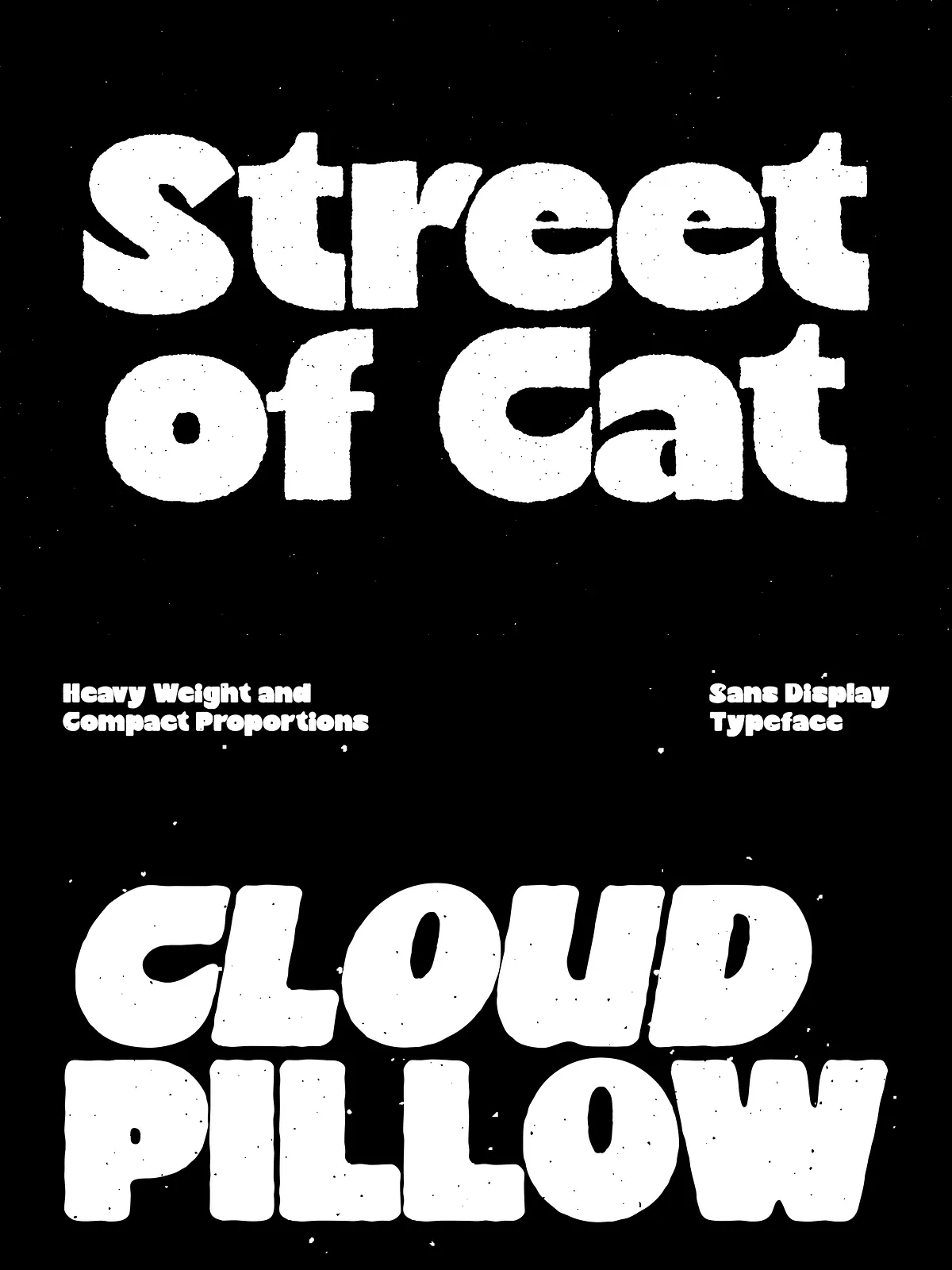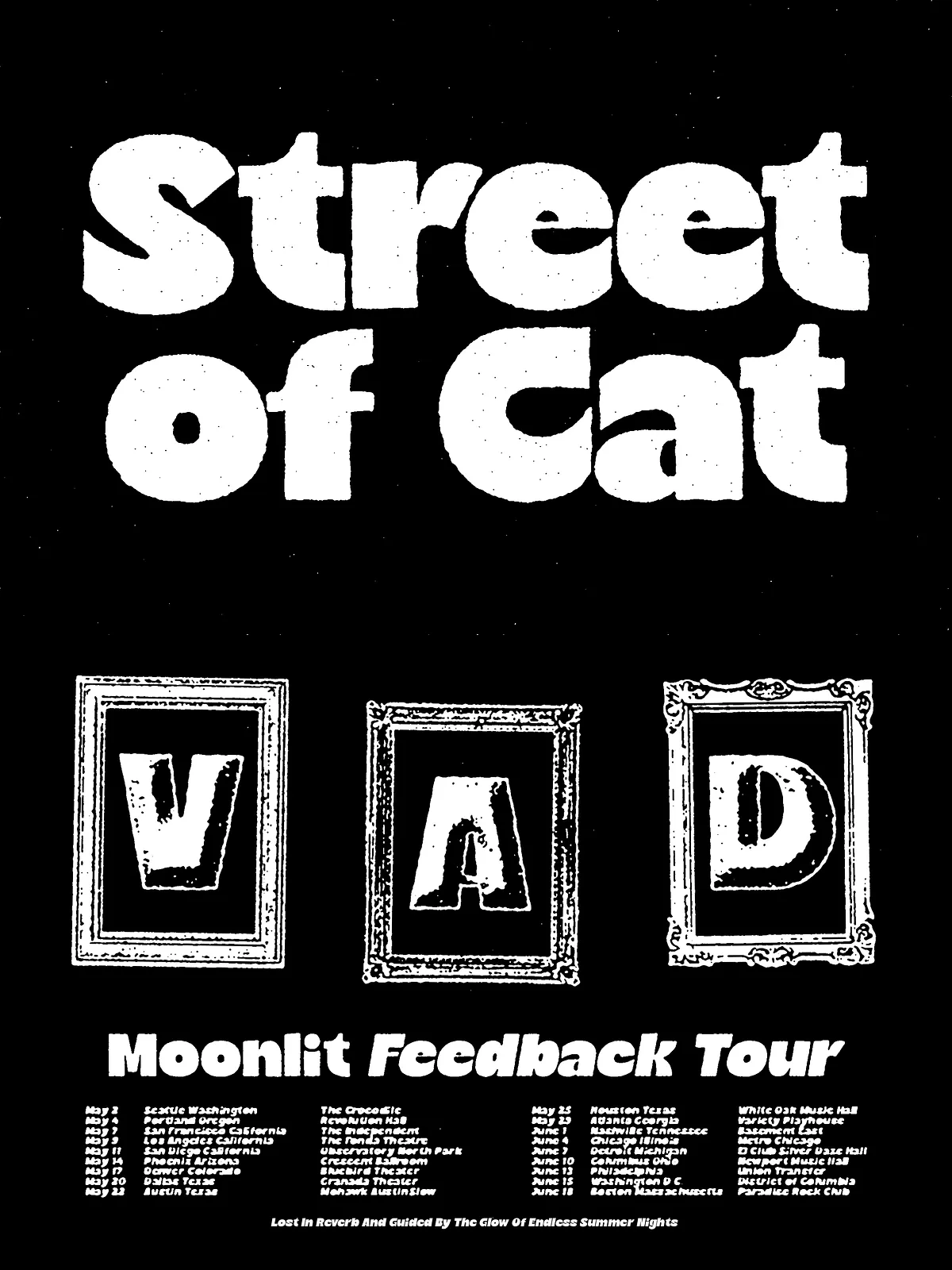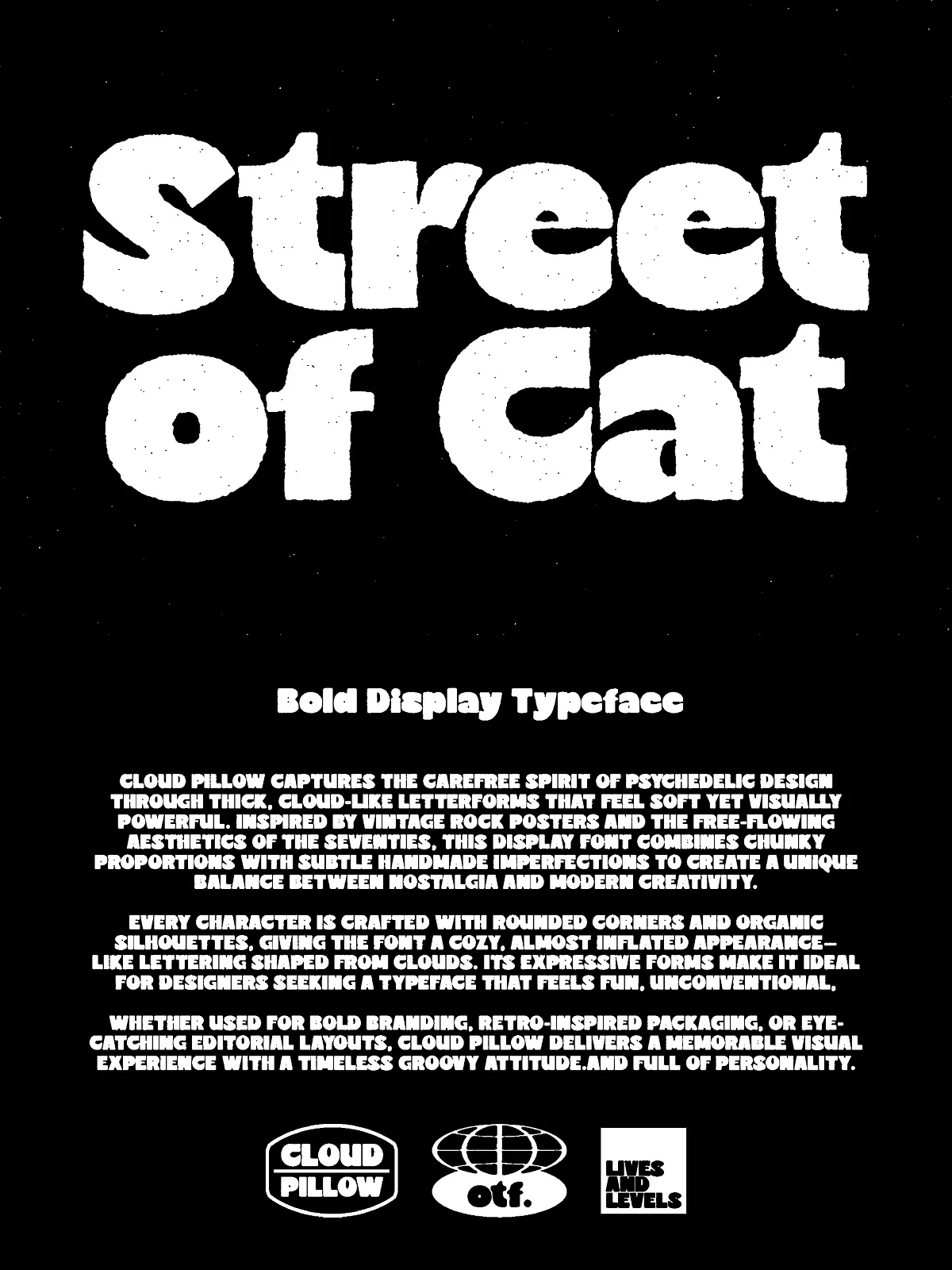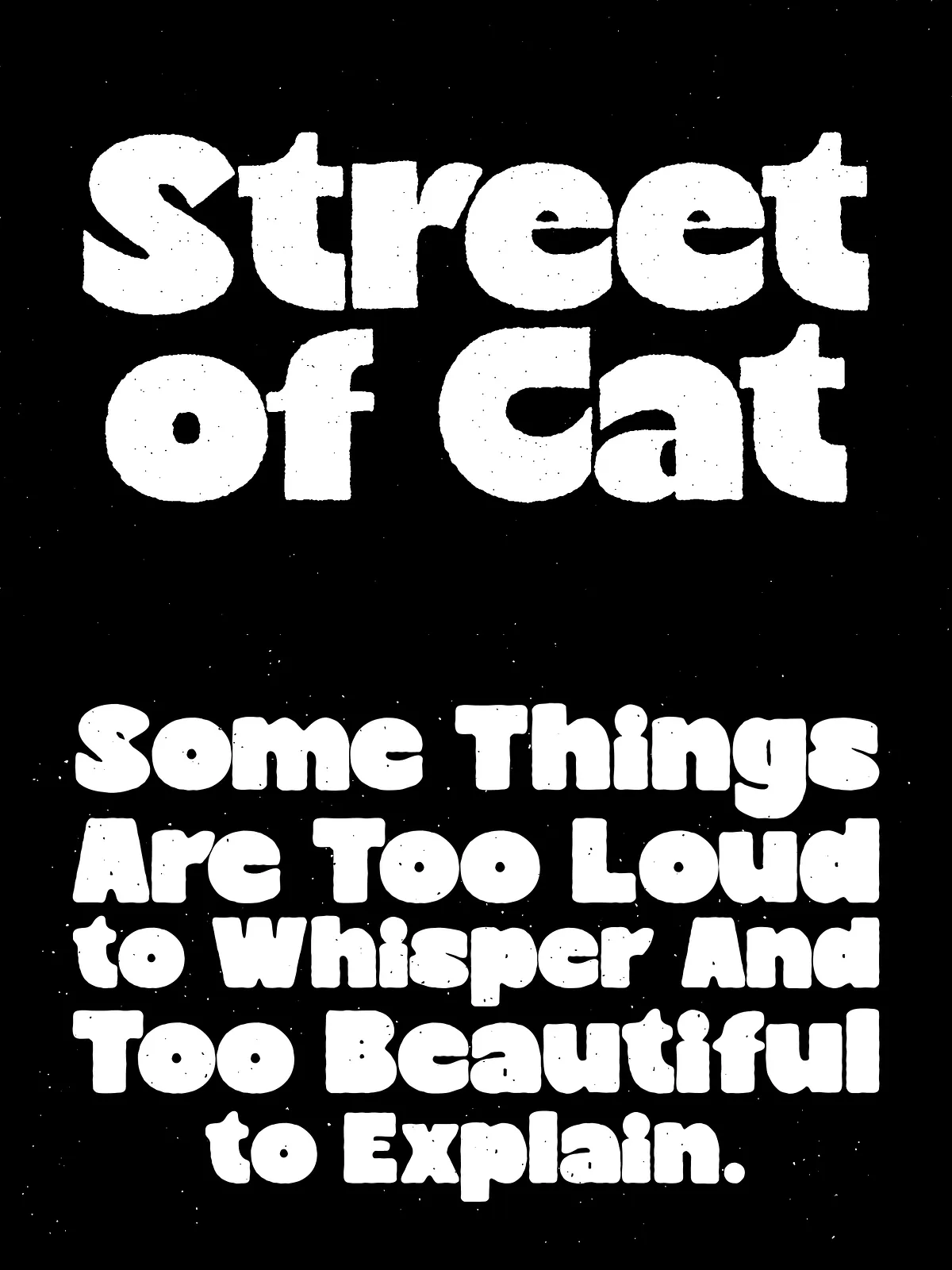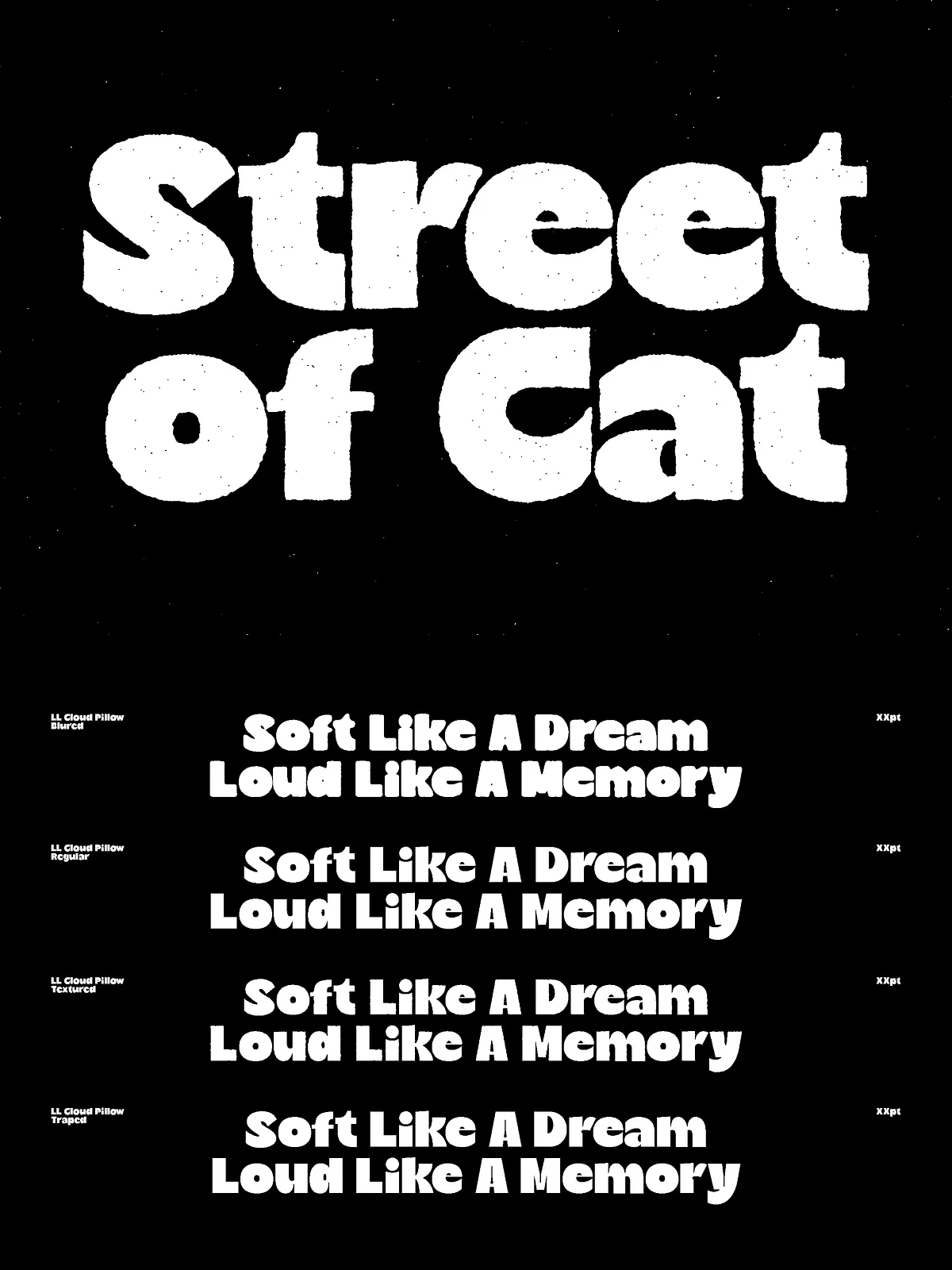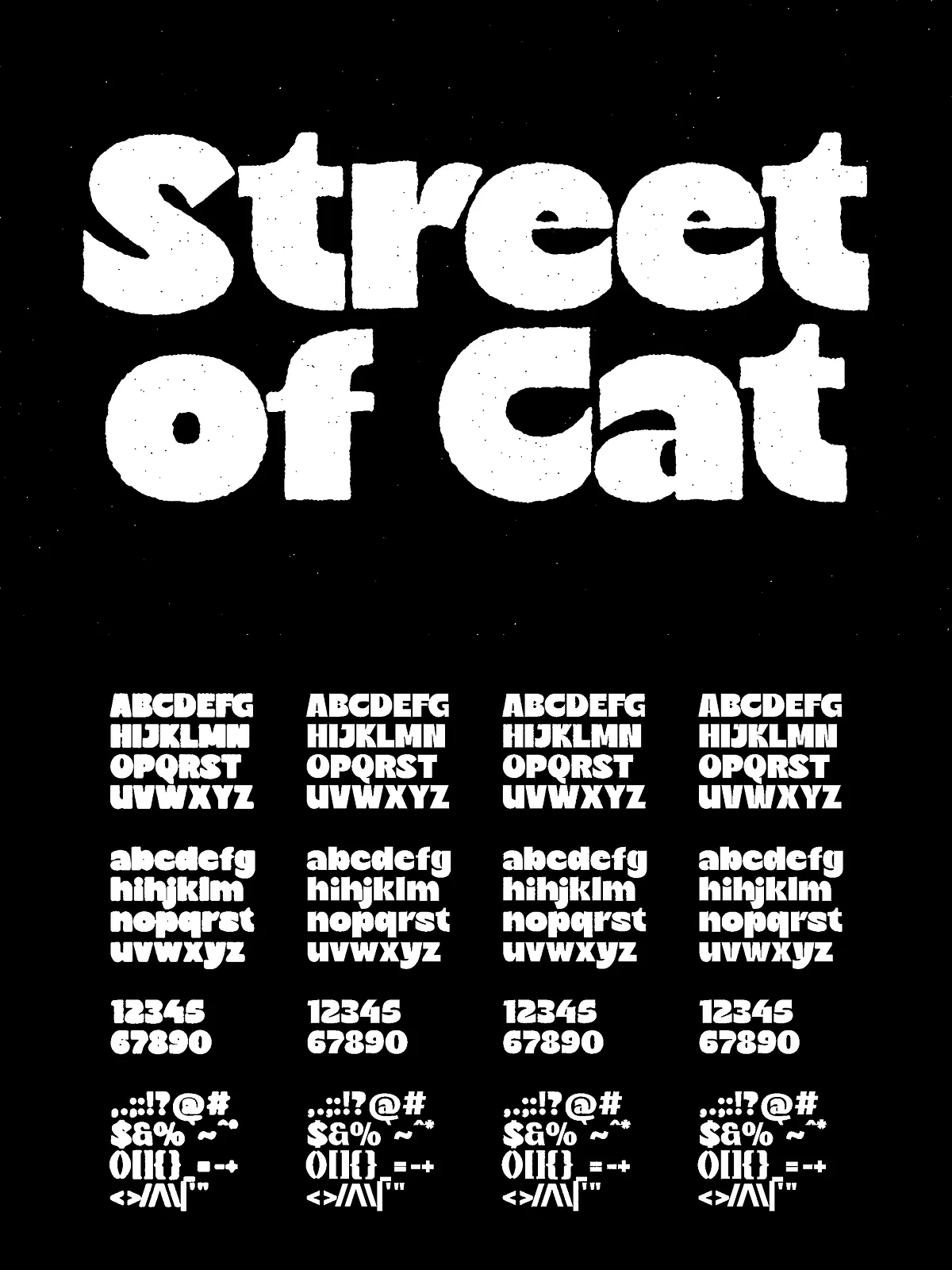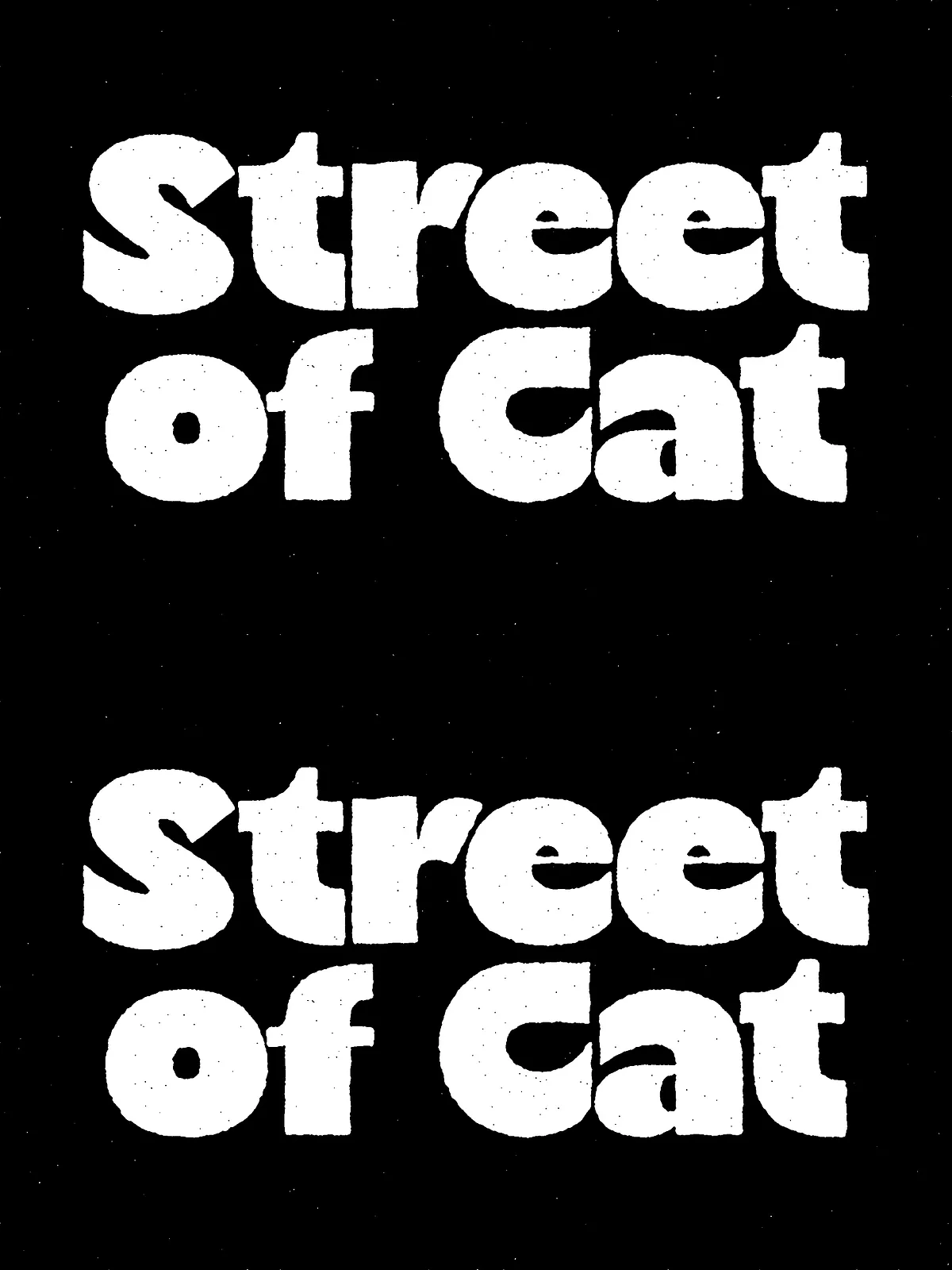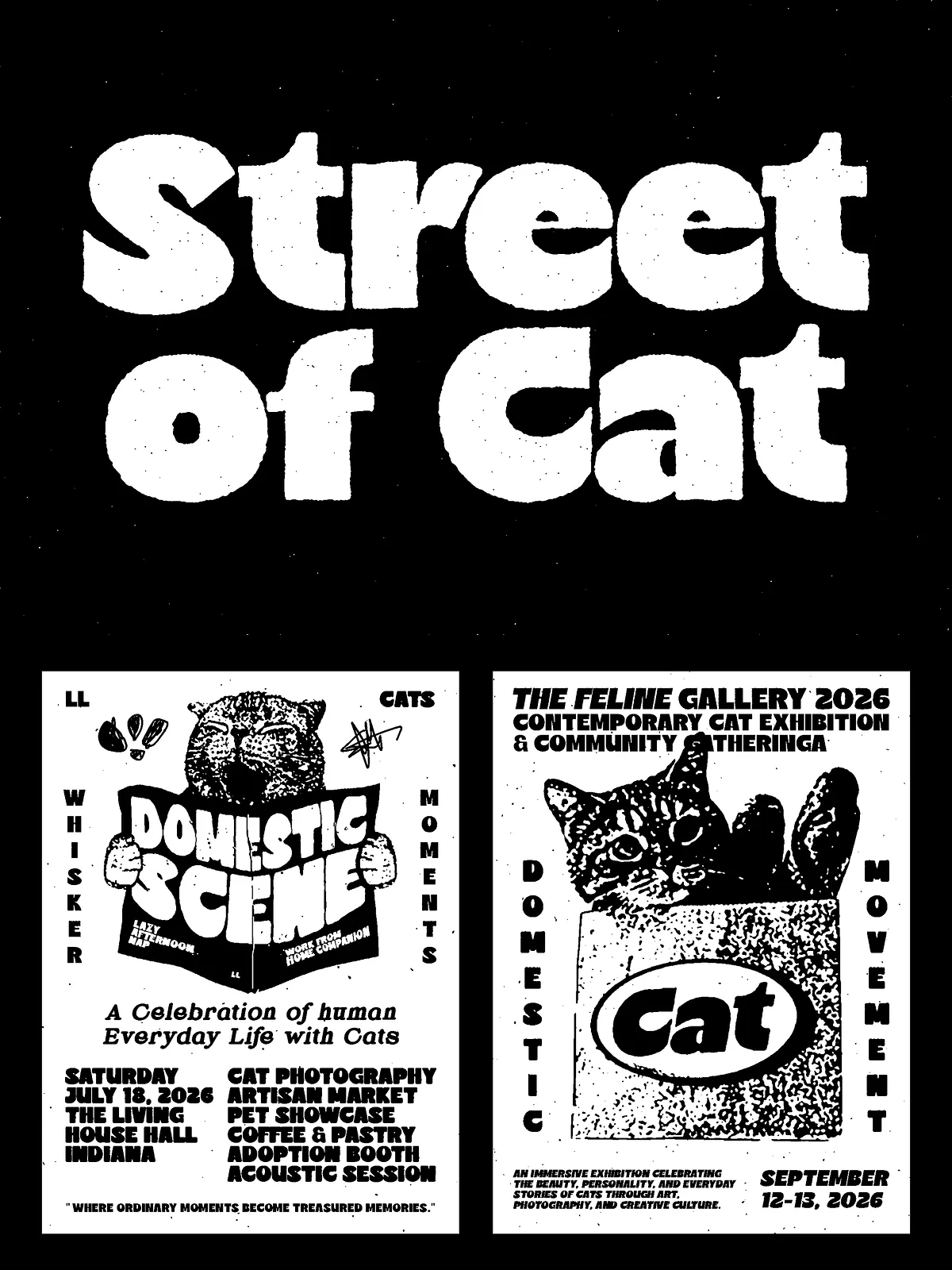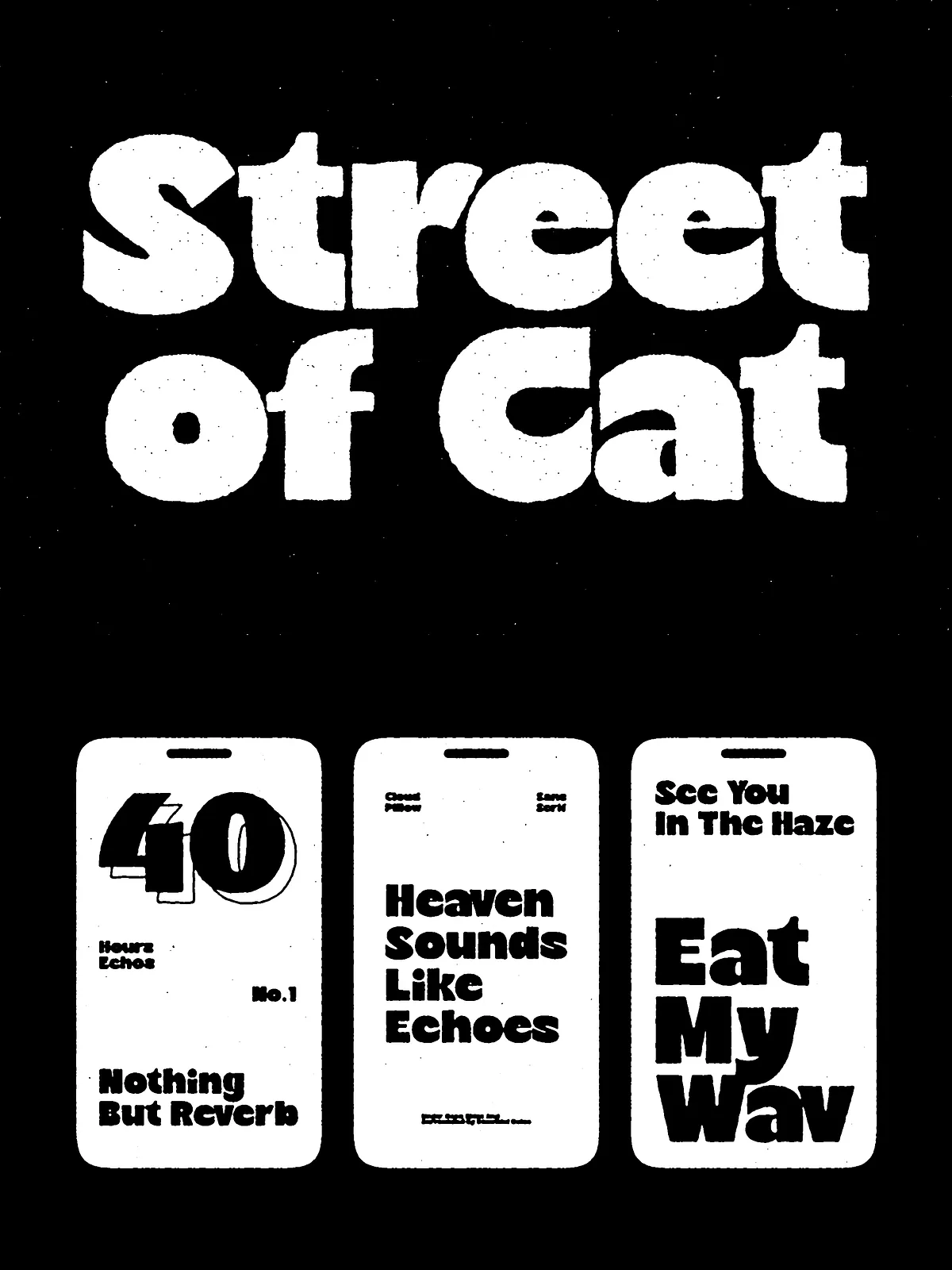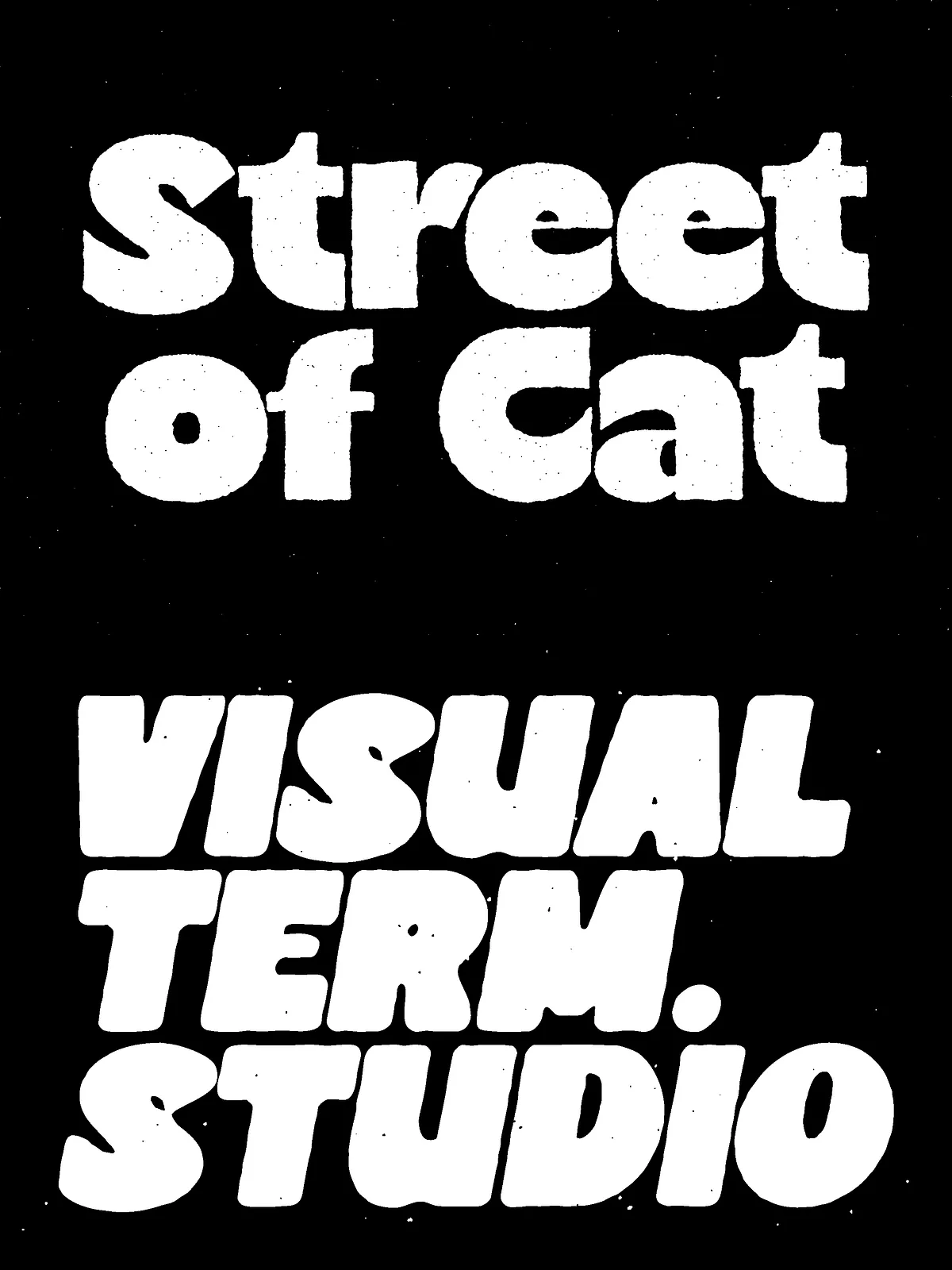
Cloud Pillow stands as a vibrant testament to the power of playful typography. This chunky, feel-good display typeface brings oversized curves and a soft, hand-shaped attitude to every design it touches. Inspired by the vibrant aesthetics of vintage psychedelia and the distinctive charm of playful retro signage, Cloud Pillow delivers a font family that refuses to blend into the background. Every letter carries a slightly imperfect silhouette, creating a warm and rebellious personality that instantly captures attention and holds the viewer’s gaze.
Designed for creators who seek to make a strong visual impact, Cloud Pillow bridges the gap between nostalgic warmth and modern boldness. Its fluffy, impossible-to-ignore presence makes it an ideal choice for projects that demand energy, personality, and a touch of rebellious spirit. Whether you are designing eye-catching posters, iconic album covers, distinctive packaging, or expressive brand identities, Cloud Pillow injects a sense of fun and nostalgia that resonates with audiences.
Distinctive Visual Character
Cloud Pillow distinguishes itself through its unique, hand-shaped forms that reject rigid geometric precision in favor of organic, flowing curves. This intentional imperfection gives the font its signature warmth and charm, making it feel approachable yet strikingly bold. The oversized nature of the letters ensures that your message is never missed, while the subtle variations in the letterforms add depth and interest that generic sans-serifs often lack.
The font’s ability to evoke nostalgia while maintaining a contemporary edge makes it incredibly versatile. It captures the spirit of past eras without feeling dated, allowing designers to create work that feels both timeless and current. This balance of old-world charm and modern appeal ensures that Cloud Pillow remains relevant across a wide range of creative applications.
Comprehensive Style Options
Cloud Pillow offers four distinct styles to suit varying design needs and visual preferences. The Regular style provides the foundational chunky look, while the Rough style adds an extra layer of textural grit and edge. The Bold and Black styles offer increasing levels of visual weight, perfect for headlines that need to dominate a layout. This variety allows you to create dynamic typographic hierarchies within a single, cohesive family.
These style variations enable you to adapt the font’s personality to different contexts. Use the Regular or Rough styles for body text or secondary elements, and reserve the Bold or Black styles for main headlines and focal points. This flexibility ensures that Cloud Pillow can enhance a design without overwhelming it.
Comprehensive Feature Set
Essential Glyphs and Language Support
Cloud Pillow is designed to support a wide range of languages, ensuring that your creative vision can be shared globally. The font includes a comprehensive set of uppercase and lowercase letters, numbers, and punctuation marks, all crafted with the same distinctive hand-shaped attitude. Multilingual support allows you to incorporate local languages and special characters, ensuring that your designs remain authentic and accessible to diverse audiences.
The inclusion of complete glyph sets means you can create professional, polished designs without needing to swap fonts or compromise on style. Every character, from standard punctuation to specialized symbols, maintains the consistent, warm personality that defines the Cloud Pillow family.
This multi-format approach guarantees that Cloud Pillow fits effortlessly into your existing design ecosystem, whether you are working on print materials, digital graphics, or web-based projects. The clean kerning and spacing included in the font files ensure that your text looks polished and professional right out of the box.
Ideal Applications
Print Design and Editorial
Cloud Pillow excels in print environments where bold, eye-catching typography can shine. Use it for magazine covers, editorial headlines, and magazine feature titles where its chunky form demands attention. The font’s nostalgic vibe adds a layer of storytelling to articles and features, making them feel more engaging and personable. Posters and flyers benefit greatly from its ability to convey energy and fun at a glance.
Packaging and Product Design
For packaging design, Cloud Pillow offers a distinctive look that helps products stand out on crowded shelves. Its rebellious personality and warm curves create a memorable brand presence that consumers notice and remember. Use it for snack food labels, beverage bottles, or cosmetic packaging to inject a sense of playfulness and authenticity that connects with modern consumers who value character and uniqueness.